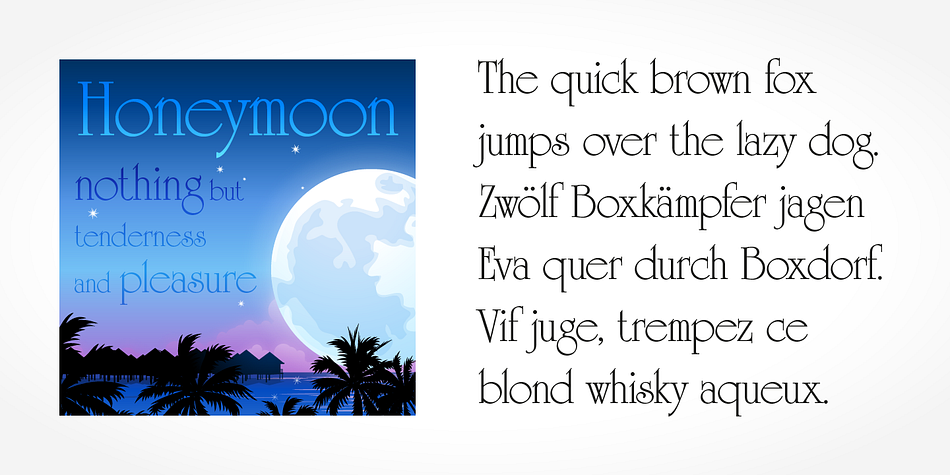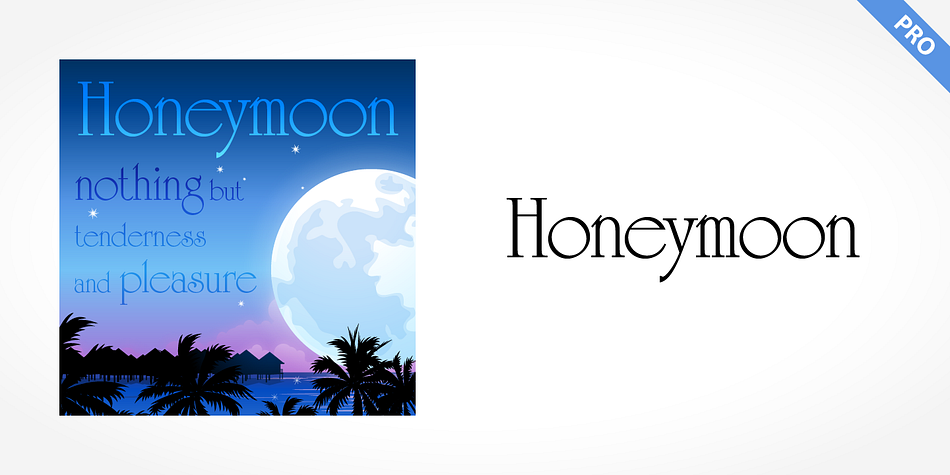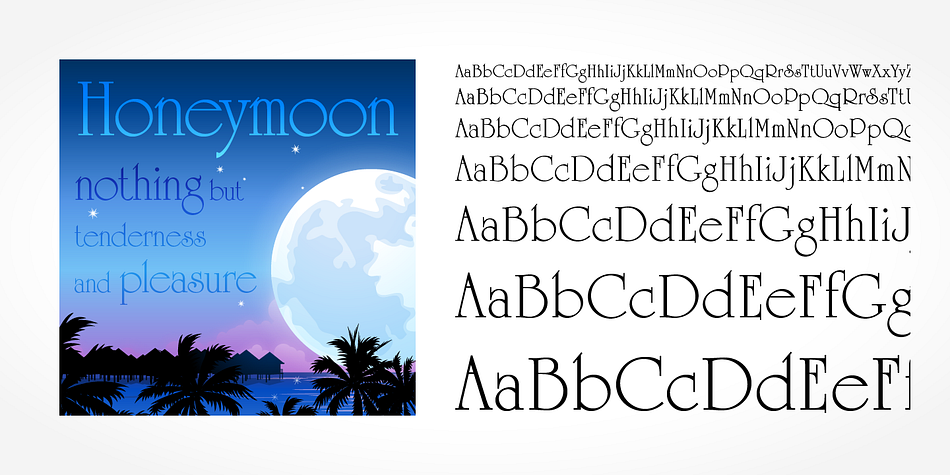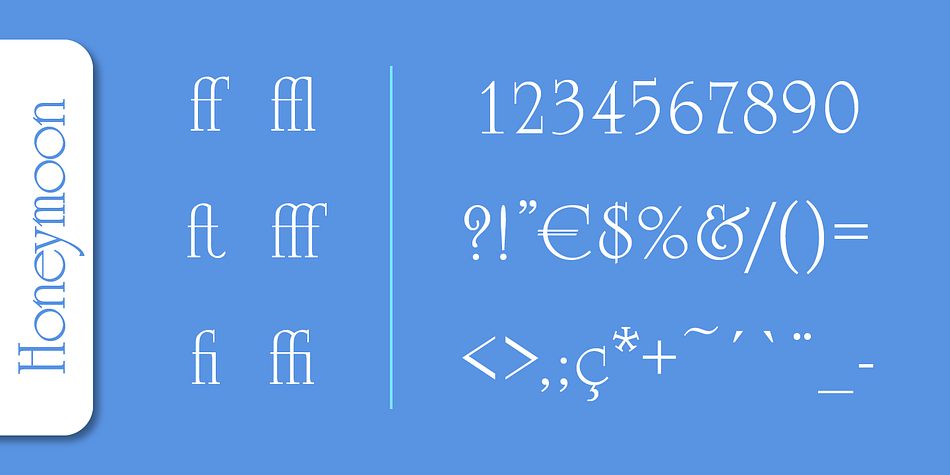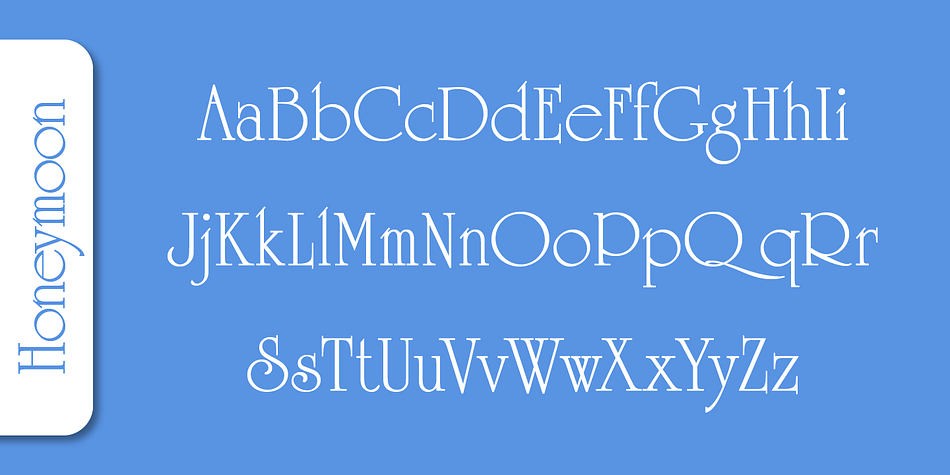
Honeymoon Pro
Honeymoon Pro is a display serif font published by SoftMaker.
Honeymoon Pro is based on Speedball hand-lettering. It’s notable for its narrow capitals with crossbars that sit well above the median line. This unique roman design evokes a romantic air in display work such as packaging and advertising.